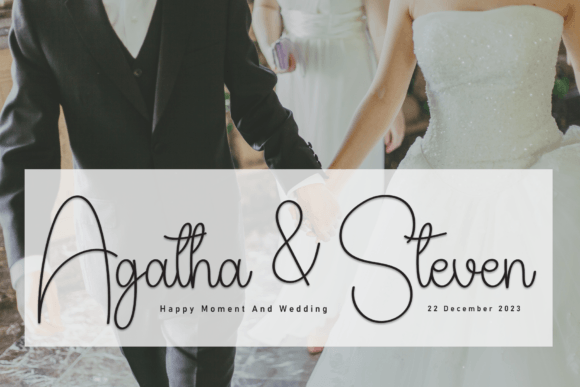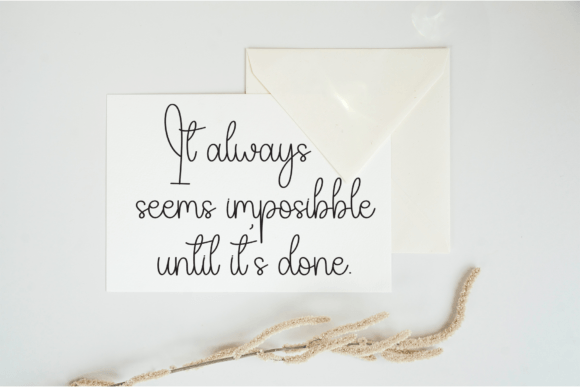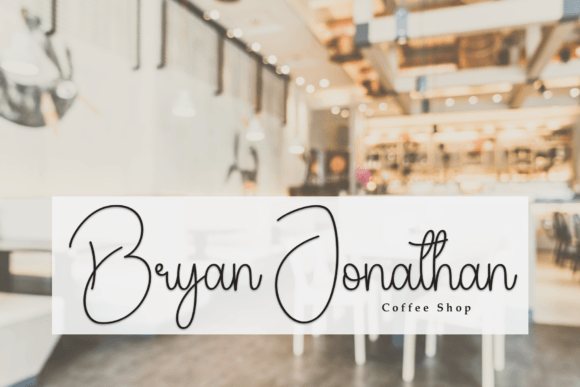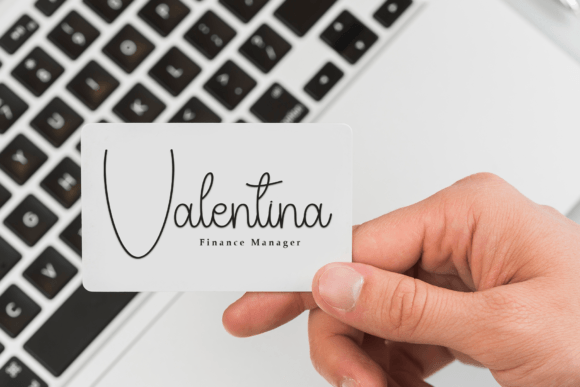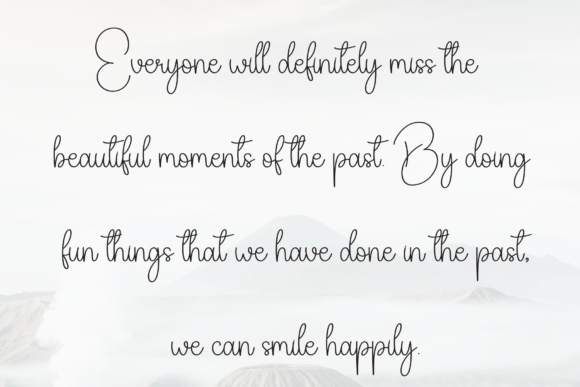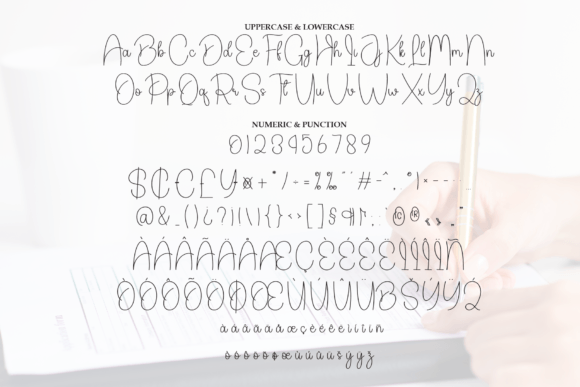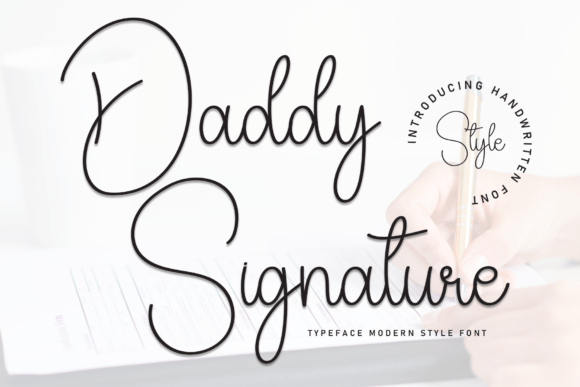
Daddy Signature Font: Add a Sweet and Friendly Touch to Your Designs
Are you looking for a font that can add a playful and charming touch to your designs? Look no further than the Daddy Signature Font! This sweet and friendly handwritten display font is perfect for creating wedding invitations, cards, and other designs that require a fun and whimsical feel.
What is Daddy Signature Font?
Daddy Signature Font is a beautiful, handwritten display font that is designed to bring a smile to your face. Its cute and fun style makes it ideal for a wide range of design projects, from wedding invitations and cards to posters, flyers, and more. This font is perfect for designers and crafters who want to add a personal touch to their work.
Key Features of Daddy Signature Font
- Sweet and Friendly Style: Daddy Signature Font has a sweet and friendly style that is sure to delight your audience.
- Handwritten Display Font: This font is a beautiful, handwritten display font that is perfect for creating eye-catching designs.
- Cute and Fun: The font’s cute and fun style makes it ideal for designs that require a playful touch.
- Easy to Read: Despite its playful style, Daddy Signature Font is easy to read, making it perfect for body text and headings.
Uses of Daddy Signature Font
Daddy Signature Font is a versatile font that can be used for a wide range of design projects, including:
- Wedding Invitations: This font is perfect for creating beautiful and unique wedding invitations that will set the tone for the big day.
- Cards and Stationery: Daddy Signature Font is ideal for creating cute and fun cards, stationery, and other paper crafts.
- Posters and Flyers: This font can be used to create eye-catching posters and flyers that will grab the attention of your audience.
- Digital Designs: Daddy Signature Font can also be used for digital designs, such as social media graphics, blog posts, and more.
Why Choose Daddy Signature Font?
There are many reasons why you should choose Daddy Signature Font for your next design project. Here are a few:
- Unique Style: Daddy Signature Font has a unique and playful style that will set your designs apart from the rest.
- High-Quality: Daddy Signature Font is a high-quality font that is designed to look great on any device.
Tips for Using Daddy Signature Font
Here are a few tips for using Daddy Signature Font in your designs:
- Use it for Headings: Daddy Signature Font is perfect for headings and titles, but it can also be used for body text.
- Experiment with Colors: This font looks great in a variety of colors, so don’t be afraid to experiment and find the perfect color for your design.
- Pair it with Other Fonts: Daddy Signature Font can be paired with other fonts to create a unique and interesting design.
Daddy Signature Font is a sweet and friendly handwritten display font that is perfect for adding a playful touch to your designs. Its cute and fun style makes it ideal for wedding invitations, cards, and other designs that require a whimsical feel. With its ease of use, high-quality design, and affordability, Daddy Signature Font is a great choice for designers and crafters of all levels.